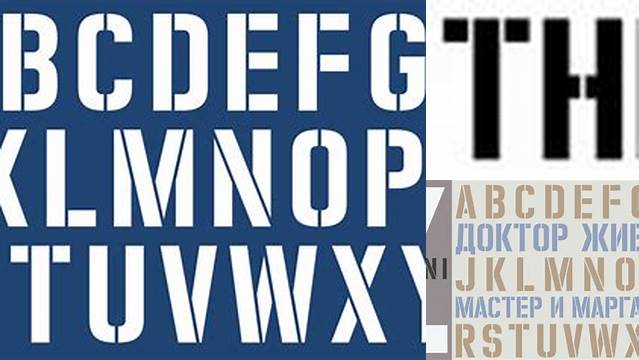
Zuboni Stencil Font: Free TTF Download & Creative Uses
Stencil fonts, like the Zuboni Stencil font, bring a unique and eye-catching aesthetic to the world of typography. These fonts, characterized by their cut-out designs, evoke a sense of industrial chic, military precision, and urban artistry. Guys, if you are looking to add a distinctive touch to your projects, stencil fonts might just be the perfect choice. This article dives deep into the Zuboni Stencil font, exploring its characteristics, availability for free download in TTF format, and creative applications across various design fields. Zuboni Stencil is not just a font; it’s a design tool that can transform your text into a visual statement. The unique cut-out design elements in stencil fonts provide a creative edge, making your text stand out. Whether you are working on branding, posters, or digital art, Zuboni Stencil offers a blend of industrial and artistic appeal that can enhance your message. Its bold and distinct letterforms ensure readability while adding a touch of rugged elegance. Understanding the nuances of stencil fonts and their applications is crucial for designers aiming to make a lasting impression. Zuboni Stencil, with its contemporary design, fits seamlessly into various creative projects. Imagine the impact of using Zuboni Stencil on a promotional poster, instantly grabbing attention with its unique style. Or consider the sophistication it could add to a logo, conveying a sense of strength and innovation. The versatility of Zuboni Stencil makes it an invaluable asset for designers looking to push creative boundaries. This font not only serves a functional purpose but also acts as a design element in itself. The strategic use of white space within each letterform creates a visual rhythm that draws the eye and adds depth to the overall design. In essence, Zuboni Stencil is more than just a typeface; it’s a means of artistic expression. By leveraging its distinct features, designers can create compelling visuals that resonate with their audience and leave a memorable impact. As we explore the intricacies of Zuboni Stencil, it becomes clear that this font is a powerful tool for anyone looking to elevate their design work.
What is Zuboni Stencil Font?
The Zuboni Stencil font is a contemporary typeface that falls under the stencil font category. It is designed with clean lines and precise cut-outs, giving it a modern yet industrial feel. The font is versatile, suitable for a wide range of applications, from branding and advertising to posters and digital designs. Its distinctive appearance makes it a popular choice for designers seeking to make a bold statement. Let's delve deeper into what makes Zuboni Stencil a standout font. Zuboni Stencil distinguishes itself with its geometric precision and balanced letterforms. Each character is meticulously crafted to ensure readability while maintaining a strong visual impact. The strategic use of cut-outs not only defines the stencil aesthetic but also adds a layer of visual interest, making the text appear dynamic and engaging. This font is designed to capture attention, making it an excellent choice for headlines, titles, and logos. Its versatility extends to both print and digital media, ensuring that your design looks polished and professional across all platforms. Whether you're designing a website, creating marketing materials, or crafting a poster, Zuboni Stencil delivers a consistent and impactful visual message. The clean, modern lines of Zuboni Stencil convey a sense of sophistication and strength. This makes it particularly well-suited for brands that want to project an image of reliability and innovation. The font’s unique design also allows for creative experimentation, enabling designers to play with color, texture, and spacing to achieve a variety of effects. Consider how Zuboni Stencil could transform a simple tagline into a powerful brand statement, or how it could enhance the visual appeal of a product label. The possibilities are virtually limitless. Furthermore, Zuboni Stencil's contemporary design aligns seamlessly with current trends in typography, ensuring that your work remains fresh and relevant. In a world where visual communication is paramount, selecting the right font can make all the difference. Zuboni Stencil offers a compelling solution for designers seeking a typeface that combines modern aesthetics with functional clarity. By understanding its unique characteristics and leveraging its potential, you can create designs that stand out and leave a lasting impression.
Key Features of Zuboni Stencil Font
When it comes to key features, Zuboni Stencil boasts several notable attributes. Its geometric design, clean lines, and balanced letterforms contribute to its modern appeal. The consistent cut-out style ensures a cohesive and professional look. The font is also highly legible, making it suitable for both headlines and body text, depending on the size and context. Moreover, Zuboni Stencil often includes a full character set, with uppercase and lowercase letters, numbers, and punctuation marks. These features combine to make Zuboni Stencil a versatile and valuable asset for designers. Let's explore these features in more detail. The geometric design of Zuboni Stencil is a hallmark of its modern aesthetic. Each letter is constructed with precision, reflecting a sense of order and balance. This geometric foundation provides a strong visual structure, ensuring that the font remains legible and impactful. The clean lines further enhance its contemporary feel, making it an excellent choice for projects that require a sleek and sophisticated look. Whether you're designing a website, crafting a brochure, or creating a logo, the geometric precision of Zuboni Stencil adds a touch of professionalism and clarity. The consistent cut-out style is another defining feature of Zuboni Stencil. This design element creates a visual rhythm that is both engaging and memorable. The cut-outs not only give the font its stencil character but also add a layer of visual depth. This unique style makes Zuboni Stencil particularly well-suited for designs that need to stand out, such as posters, packaging, and promotional materials. The uniform application of the cut-out style ensures a cohesive look, reinforcing the font’s overall aesthetic appeal. Legibility is a crucial consideration for any typeface, and Zuboni Stencil excels in this regard. Despite its distinctive stencil design, the font remains highly readable, thanks to its balanced letterforms and clear spacing. This legibility makes it a versatile choice, suitable for a range of applications. While it's particularly effective for headlines and titles, Zuboni Stencil can also be used in body text, provided that the size and context are carefully considered. Its readability ensures that your message is communicated clearly and effectively, regardless of the medium. The inclusion of a full character set is another key feature that enhances the versatility of Zuboni Stencil. With uppercase and lowercase letters, numbers, and punctuation marks, the font offers a comprehensive toolkit for designers. This allows for seamless integration into various projects, ensuring that you have all the necessary elements to create a polished and professional design. The complete character set provides the flexibility to express your creativity without limitations. In summary, the key features of Zuboni Stencil – its geometric design, clean lines, consistent cut-out style, high legibility, and full character set – make it a standout choice for designers seeking a modern and versatile typeface. By understanding and leveraging these features, you can create designs that are both visually appealing and functionally effective.
Creative Uses and Applications
The creative uses and applications of Zuboni Stencil are vast and varied. Its industrial and modern aesthetic makes it ideal for branding projects, particularly for businesses in the tech, manufacturing, or creative industries. It works wonderfully for logo design, headlines, posters, and signage. In the digital realm, it's great for website headers, app interfaces, and social media graphics. Let's dive into some specific examples and explore how Zuboni Stencil can enhance your designs. One of the most effective applications of Zuboni Stencil is in branding projects. Its bold and distinctive letterforms can help create a strong visual identity for your brand. Consider using Zuboni Stencil in your logo design to convey a sense of strength, innovation, and modernity. The stencil effect adds a unique touch that can make your brand stand out from the competition. Additionally, Zuboni Stencil can be used in your marketing materials, such as business cards, brochures, and website headers, to maintain a consistent and impactful brand image. By incorporating Zuboni Stencil into your overall branding strategy, you can create a cohesive and memorable visual presence. In the realm of logo design, Zuboni Stencil offers a unique blend of industrial and artistic appeal. The cut-out design elements make your logo visually striking and memorable. Whether you're designing a logo for a tech startup, a manufacturing company, or a creative agency, Zuboni Stencil can help you communicate your brand’s values and personality. Experiment with different colors, textures, and spacing to achieve the desired effect. The versatility of Zuboni Stencil allows for a wide range of creative possibilities, making it an excellent choice for designers looking to create impactful and distinctive logos. Posters and signage are another area where Zuboni Stencil shines. Its bold and legible letterforms make it an ideal choice for headlines and titles that need to grab attention. Use Zuboni Stencil to create eye-catching posters for events, promotions, or public announcements. The stencil effect adds a visual edge that can make your message stand out in a crowded environment. For signage, Zuboni Stencil’s clarity and impact ensure that your message is easily seen and understood. Whether you're designing directional signs, informational displays, or promotional banners, Zuboni Stencil can help you communicate effectively. In the digital world, Zuboni Stencil is equally versatile. Its modern aesthetic makes it well-suited for website headers, app interfaces, and social media graphics. Use Zuboni Stencil to create compelling headlines and titles that draw users in and keep them engaged. The stencil effect adds a unique visual element that can enhance the overall look and feel of your digital presence. Whether you're designing a website, developing an app, or creating social media content, Zuboni Stencil can help you create a cohesive and impactful digital brand. In summary, the creative uses and applications of Zuboni Stencil are extensive and diverse. From branding and logo design to posters, signage, and digital graphics, this font offers a unique blend of industrial and artistic appeal. By understanding its strengths and leveraging its versatility, you can use Zuboni Stencil to create designs that are both visually striking and functionally effective. This will help you communicate your message clearly and make a lasting impression on your audience.
Tips for Using Stencil Fonts Effectively
Using stencil fonts effectively requires careful consideration. While their unique aesthetic can be powerful, overusing them or using them in the wrong context can diminish their impact. It's important to ensure readability, especially in smaller sizes or longer texts. Consider the background and color palette, as the cut-out design can create interesting visual effects. Experiment with spacing and kerning to achieve the best look. Finally, use stencil fonts sparingly to create emphasis and avoid visual clutter. Let's delve into these tips in more detail to help you master the art of using stencil fonts. One of the most important considerations when using stencil fonts is readability. While their distinctive cut-out design can be eye-catching, it can also reduce legibility, especially in smaller sizes or longer texts. To ensure that your message is communicated clearly, choose a stencil font with well-defined letterforms and adequate spacing. Avoid using stencil fonts in body text or in situations where quick reading is essential. Instead, use them sparingly for headlines, titles, and logos where the visual impact outweighs the need for maximum legibility. Experiment with different font sizes and weights to find the optimal balance between aesthetics and readability. The background and color palette play a crucial role in how stencil fonts are perceived. The cut-out design creates negative space within the letters, which can interact with the background in interesting ways. Consider using a contrasting background color to make the stencil effect stand out. For example, a bold stencil font on a dark background can create a striking visual impact. Similarly, a subtle stencil font on a light background can add a touch of sophistication. Experiment with different color combinations to achieve the desired effect. Be mindful of how the colors interact with the negative space and ensure that the overall design is visually harmonious. Spacing and kerning are critical factors in achieving a polished look with stencil fonts. The cut-out design can sometimes make the letters appear disconnected or disjointed. To counteract this, pay close attention to the spacing between letters and words. Adjust the kerning to ensure that each letter is properly aligned and that the overall text has a consistent rhythm. Too much spacing can make the text appear fragmented, while too little spacing can make it difficult to read. Experiment with different spacing and kerning settings to find the optimal balance. Using stencil fonts sparingly is a key principle in effective design. While their unique aesthetic can be powerful, overusing them can diminish their impact and create visual clutter. Reserve stencil fonts for specific elements, such as headlines, titles, or logos, where they can make a strong visual statement. Avoid using stencil fonts throughout an entire design, as this can be overwhelming and detract from the overall message. By using stencil fonts selectively, you can create emphasis and draw the viewer’s attention to key elements. This approach will ensure that your design is both visually appealing and functionally effective. In summary, using stencil fonts effectively requires careful consideration of readability, background and color palette, spacing and kerning, and strategic use. By following these tips, you can leverage the unique aesthetic of stencil fonts to create designs that are both visually striking and functionally sound. This will enable you to communicate your message effectively and make a lasting impression on your audience.
Conclusion: Embracing the Zuboni Stencil Font
In conclusion, the Zuboni Stencil font is a valuable asset for any designer looking to add a touch of industrial chic or modern artistry to their work. Its clean lines, geometric design, and distinctive cut-out style make it a versatile choice for a wide range of projects. By understanding its key features, finding reliable sources for free downloads, and applying it creatively, you can elevate your designs and make a lasting impression. So, guys, embrace the Zuboni Stencil font and let your creativity flow! As we wrap up our exploration of the Zuboni Stencil font, it's clear that this typeface offers a unique blend of functionality and aesthetic appeal. Its versatility makes it a valuable addition to any designer's toolkit, providing a means to enhance a variety of projects. By mastering the nuances of Zuboni Stencil, you can create designs that stand out and effectively communicate your message. Whether you're working on branding, advertising, or digital art, this font can help you achieve a polished and professional look. The key to leveraging Zuboni Stencil effectively lies in understanding its strengths and limitations. Its geometric precision and clean lines make it ideal for creating a modern and sophisticated visual identity. However, its stencil design also requires careful consideration of legibility and spacing. By paying attention to these details, you can ensure that your designs are both visually appealing and functionally sound. Remember, the creative applications of Zuboni Stencil are virtually limitless. Experiment with different colors, textures, and layouts to discover new ways to use this font. Consider how it can enhance your logos, headlines, posters, and website designs. By pushing the boundaries of your creativity, you can unlock the full potential of Zuboni Stencil and create truly memorable visuals. Finding a reliable source for a Zuboni Stencil font free download is the first step in incorporating it into your workflow. Be sure to prioritize safety and licensing terms when selecting a download source. Reputable font websites, such as Google Fonts, offer a wide selection of high-quality fonts that are free for commercial use. By using these resources, you can access Zuboni Stencil and other valuable typefaces without compromising on quality or legality. In closing, the Zuboni Stencil font is more than just a typeface; it's a design tool that can transform your text into a visual statement. Its unique character and versatility make it an invaluable asset for designers seeking to create impactful and memorable designs. By embracing Zuboni Stencil and exploring its creative possibilities, you can elevate your work and make a lasting impression on your audience. So go ahead, guys, download Zuboni Stencil, unleash your creativity, and let your designs speak volumes.